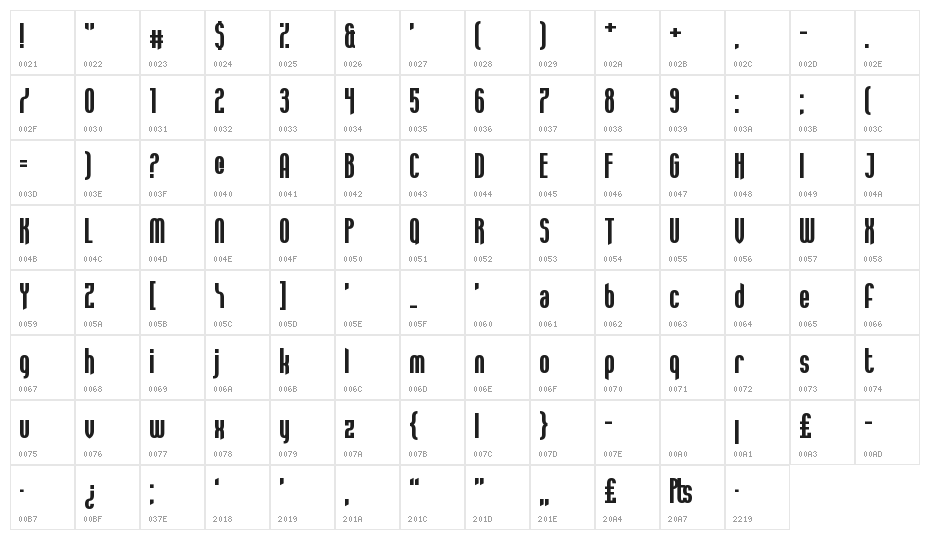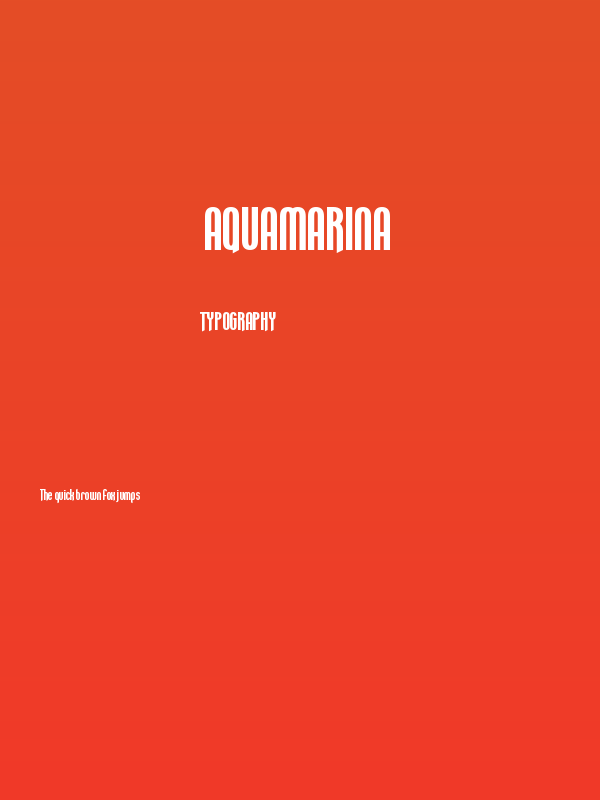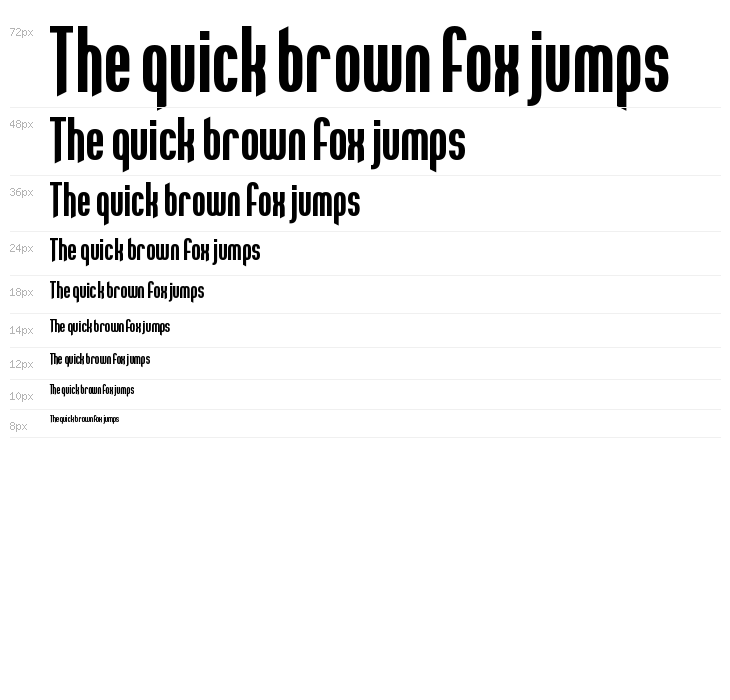
Aquamarina Font
Aquamarina Description
This font features a bold and condensed style with a strong vertical emphasis. The characters are tall and narrow, giving it a modern and impactful appearance. The uppercase and lowercase letters maintain a consistent width, contributing to a uniform look. The numbers and special characters are designed to match the overall aesthetic, ensuring cohesion across all elements. The font's geometric shapes and clean lines make it suitable for various design applications where a contemporary and assertive look is desired.
Proposed ProjectsIdeal for headlines, posters, branding, and advertising where a strong visual impact is needed.